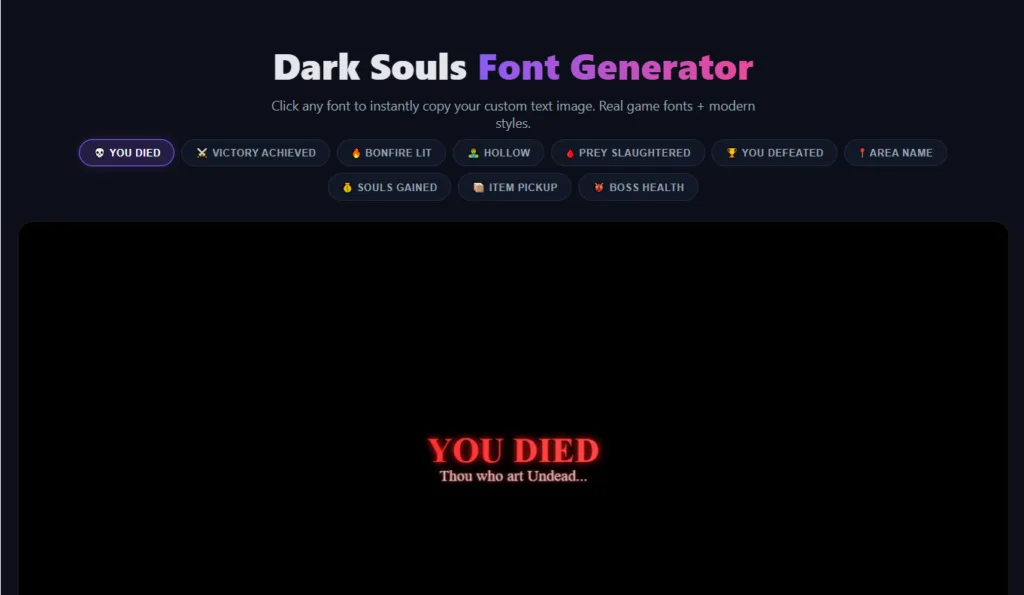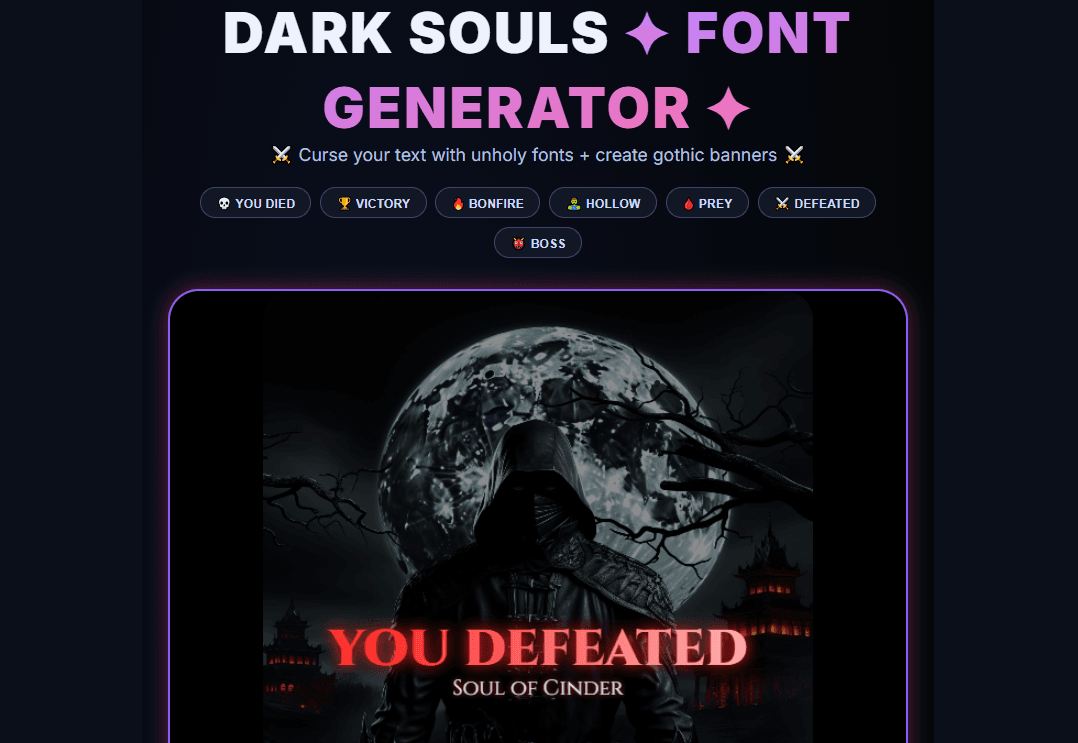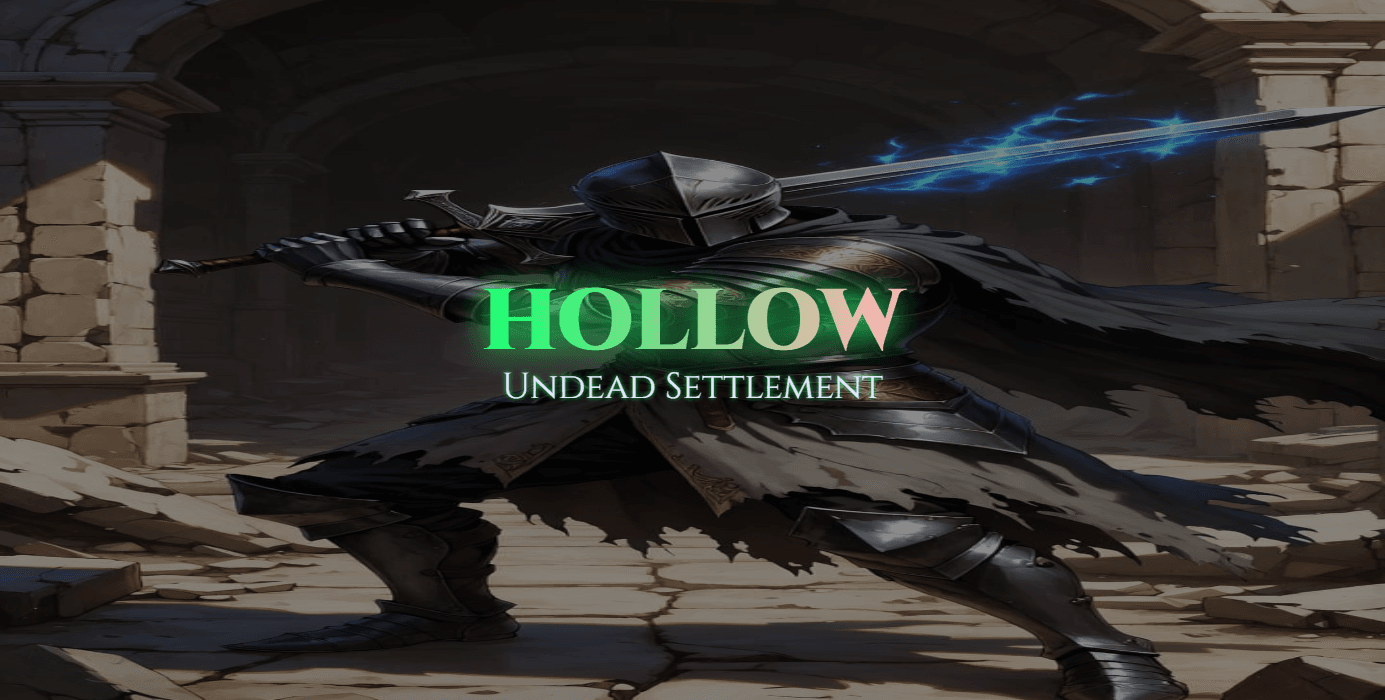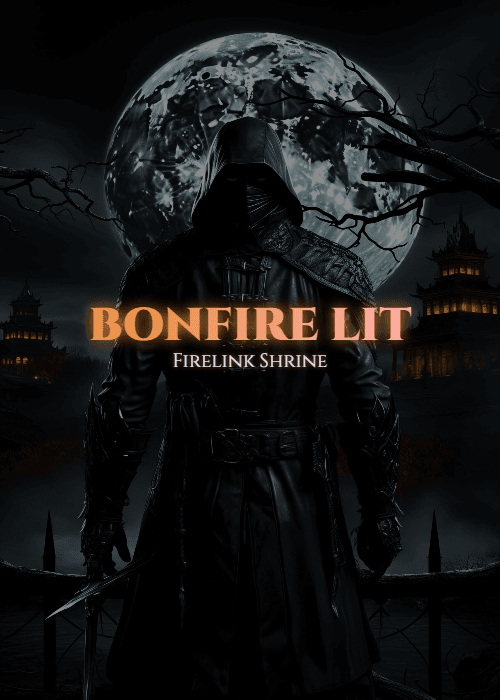
Cursed Font & Banner Generator
The Dark Souls font generator creates dark-fantasy text graphics โ death-screen messages, boss-style overlays, item banners โ directly in your browser. Dark Souls doesn’t license its in-game typeface for outside use, so this tool works from Cinzel and other gothic/medieval serif fonts that approximate the same visual register. Drag your text anywhere on the canvas, layer in glow, color, and background effects, then export as a PNG.
What the Dark Souls Font Generator Can Create
- Custom text graphics: Titles, subtitles, death-screen messages, boss-style displays, and item pickup banners.
- Draggable text positioning: Click and drag the title or subtitle directly on the canvas to place it anywhere in the frame โ not locked to a fixed layout.
- Font choices: Five built-in gothic/medieval serif typefaces (Cinzel, Cinzel Decorative, MedievalSharp, Germania One, Uncial Antiqua), plus support for uploading your own .ttf or .otf font file.
- Background filters: Blur, brightness, and grayscale sliders to blend an uploaded image with your text.
How to Use the Dark Souls Font Generator
1. Enter your message
Type your own text, or choose one of eight built-in presets: YOU DIED, BONFIRE LIT, VICTORY ACHIEVED, PREY SLAUGHTERED, HEIR DEFEATED, HOLLOW REVERSED, FOE VANQUISHED, and HUMANITY RESTORED. Each preset also sets a matching subtitle, color, and font automatically. You can add your own subtitle text on top of either option.
2. Customize the typography
Adjust font size, letter spacing, and glow intensity with the sliders. Pick a preset color โ Blood, Bonfire, Abyss, or Hollow โ or set a custom hex value for a specific shade. If none of the five built-in fonts fit what you’re after, upload your own font file (.ttf or .otf) and the generator will render your text in it.
You can also click and drag the title or subtitle directly on the canvas to reposition it โ useful for leaving space for a boss bar or item box, or just off-centering it for a thumbnail layout.
3. Choose a background
Pick a background from the built-in gallery or upload your own image. Use the blur, brightness, and grayscale sliders to blend the background with your text rather than let it compete for attention โ a busy background usually reads better with some blur and reduced brightness behind bold text.
4. Add optional game-inspired overlays
Two overlays render directly into your exported image:
- Boss Health Bar: Adds a custom boss name and health bar, styled after in-game boss encounters.
- Item Pickup Box: Adds a custom item-title notification banner.
Two more are visible while you work but are preview-only and won’t appear in your downloaded PNG:
- Souls Counter: A running on-page tally that increases as you use the tool โ a fun touch while designing, not part of the exported image.
- CRT Scanlines: A retro screen-texture effect layered over the live preview in your browser, not baked into the export.
5. Export your image
Select Download PNG to save your design. On browsers that support it, Copy Image lets you paste the result directly into other applications.
Fonts and Effects
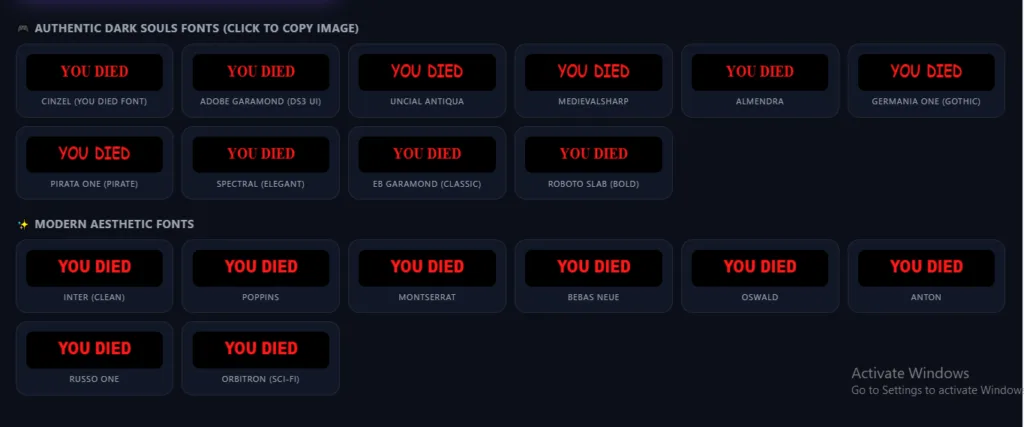
Cinzel is the default and closest general match to the weight and proportions used across most Soulslike branding. Cinzel Decorative, MedievalSharp, Germania One, and Uncial Antiqua each shift the tone โ more ornate, more brutal, more ancient โ and all five render live in the preview so you can compare before exporting.
Stylized Text Generator
Below the main image generator is a separate Unicode text converter with five styles: Gothic Fraktur, Bold Gothic, Double Struck, Fullwidth, and Cursed Zalgo. Each one copies straight to your clipboard as plain text โ useful for usernames, Discord bios, and anywhere an image upload isn’t practical.
How to Export a PNG
- Finish your text, color, background, and overlay settings.
- Click Download PNG to save the current design.
- Use Copy Image when image clipboard support is available in your browser.